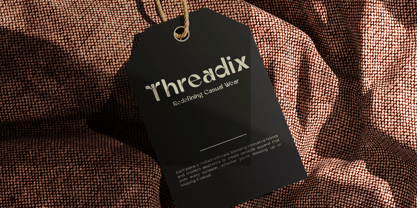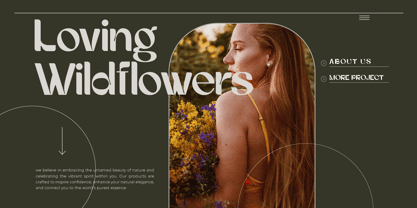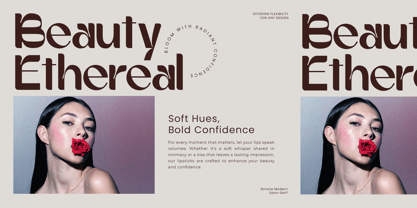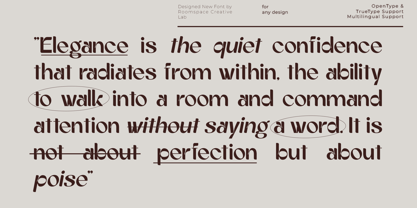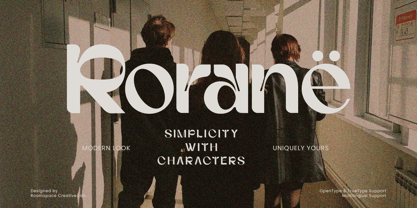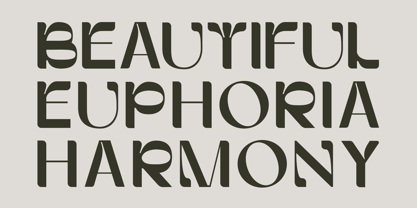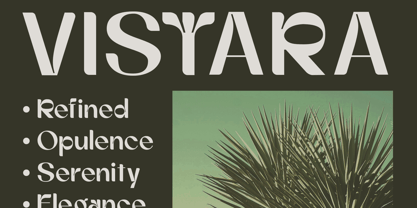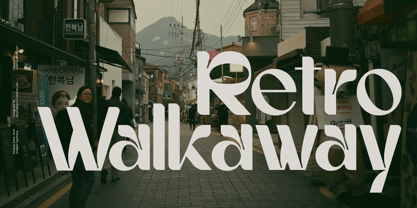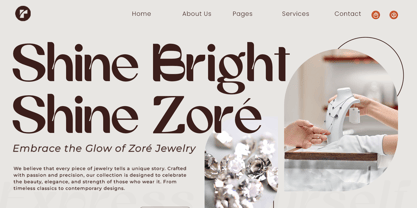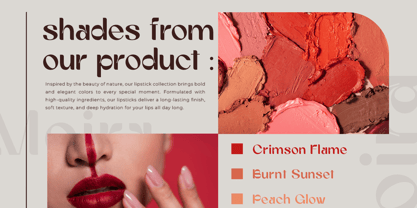
Rorane
The Rorane Font Family was designed by Bakhrudin Ja'far and published by Jafar07. Rorane contains 2 styles and family package options. More about this family
Rorane - A modern sans serif with character Say hello to Rorane – a modern sans-serif font that’s uniquely yours. Rorane is clean, creative, and just the right touch of bold without being overwhelming. Its smooth curves and subtle details make it approachable and elegant at the same time. Perfect for adding a fresh and modern touch to logos, headings, packaging, and modern brands, Rorane fits effortlessly into any project. Whether you're designing magazine headings or creating playful, standout designs for playful brands, Rorane is versatile enough to handle it all. It’s a font that feels like a trusted companion for your creative journey, offering simplicity with character